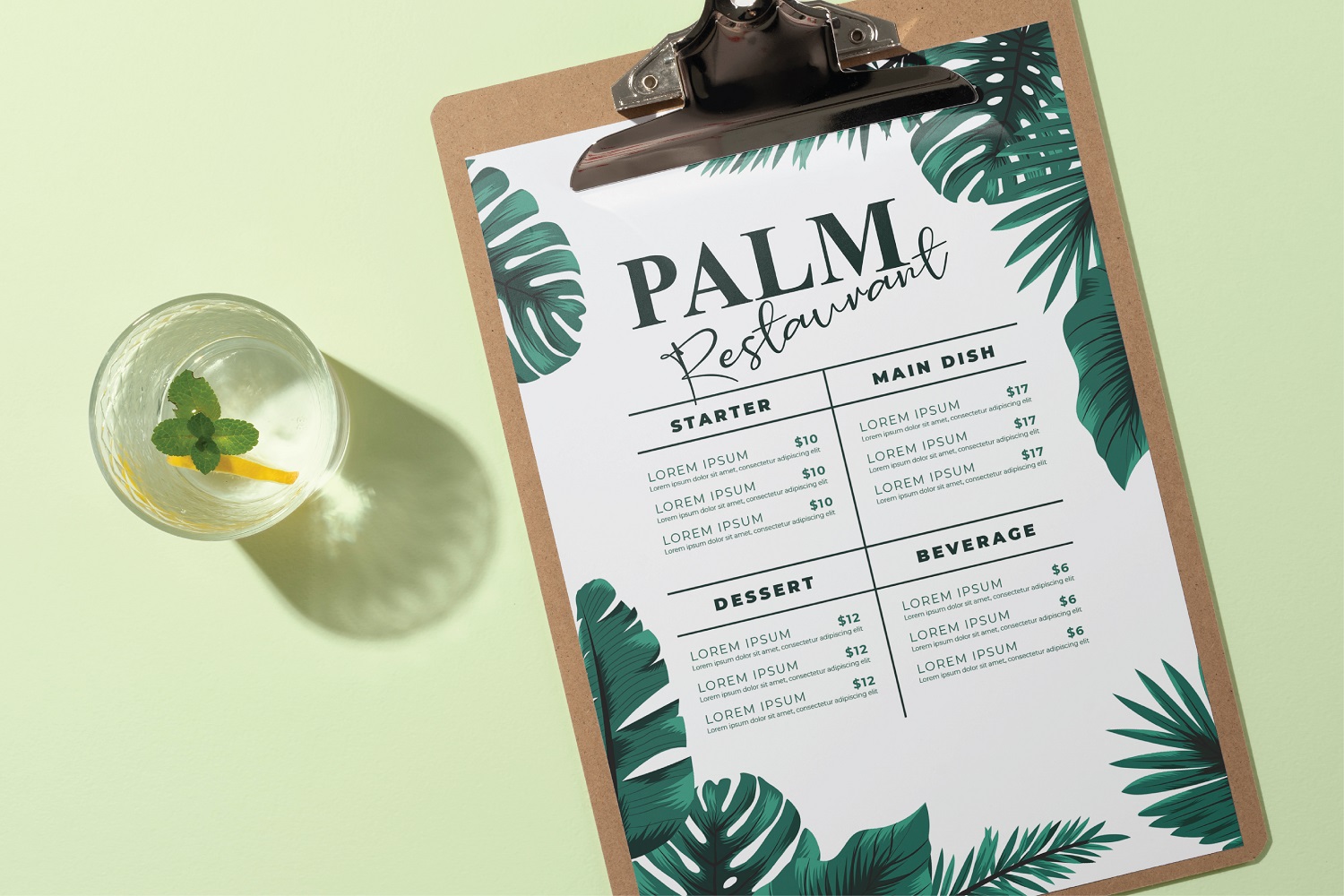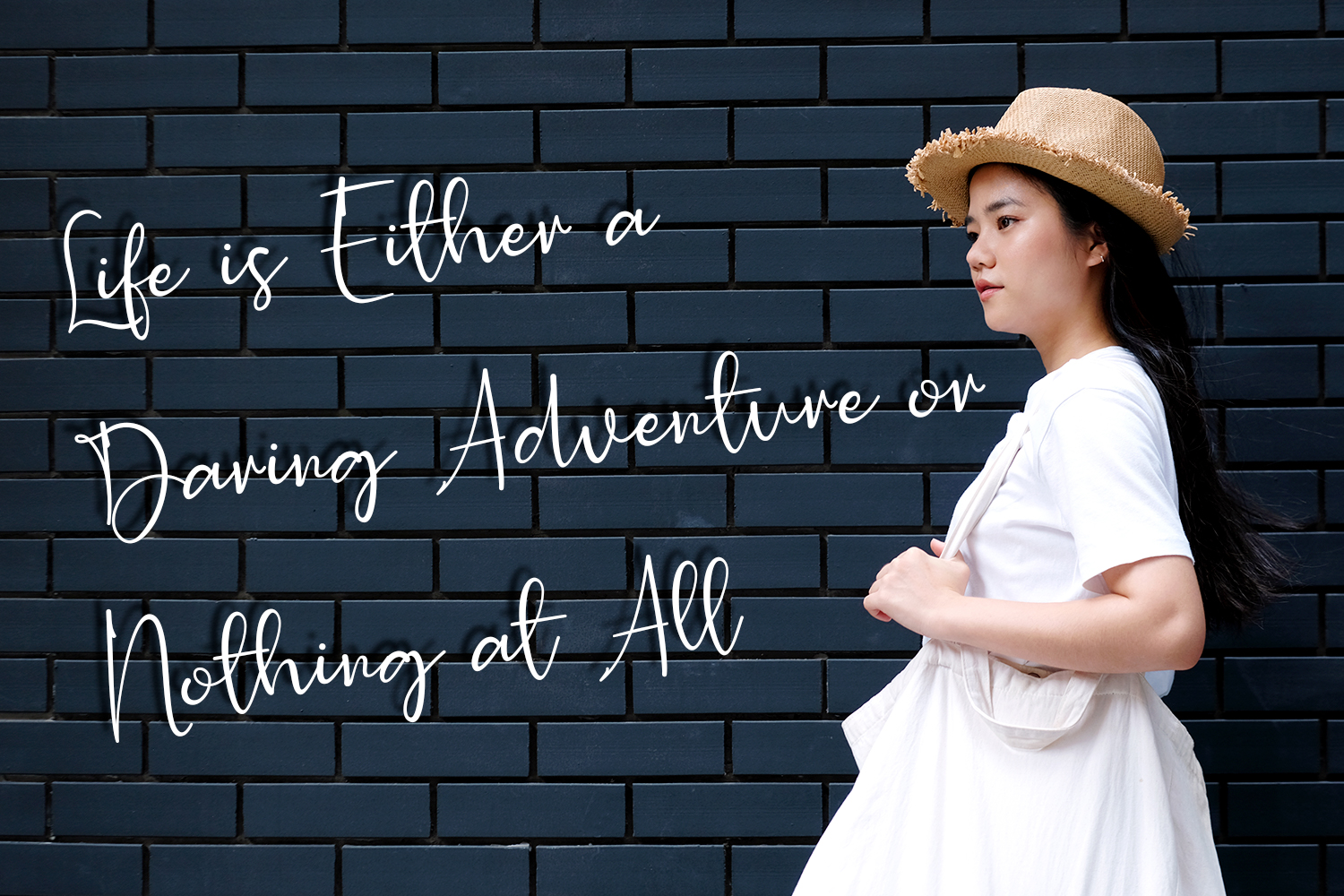
Elevate your designs with the graceful flow of Jamitha Script Font. Featuring elegant curves and smooth, flowing strokes, this script font brings a sense of sophistication and warmth to any project. Perfect for wedding invitations, logos, branding, and more, Jamitha blends classic calligraphy with a modern twist, making your text stand out with a personal and refined touch. Whether you’re creating formal designs or adding a romantic flair, Jamitha Script Font is the ideal choice to make your work shine. Download Jamitha today and let your creativity flourish!